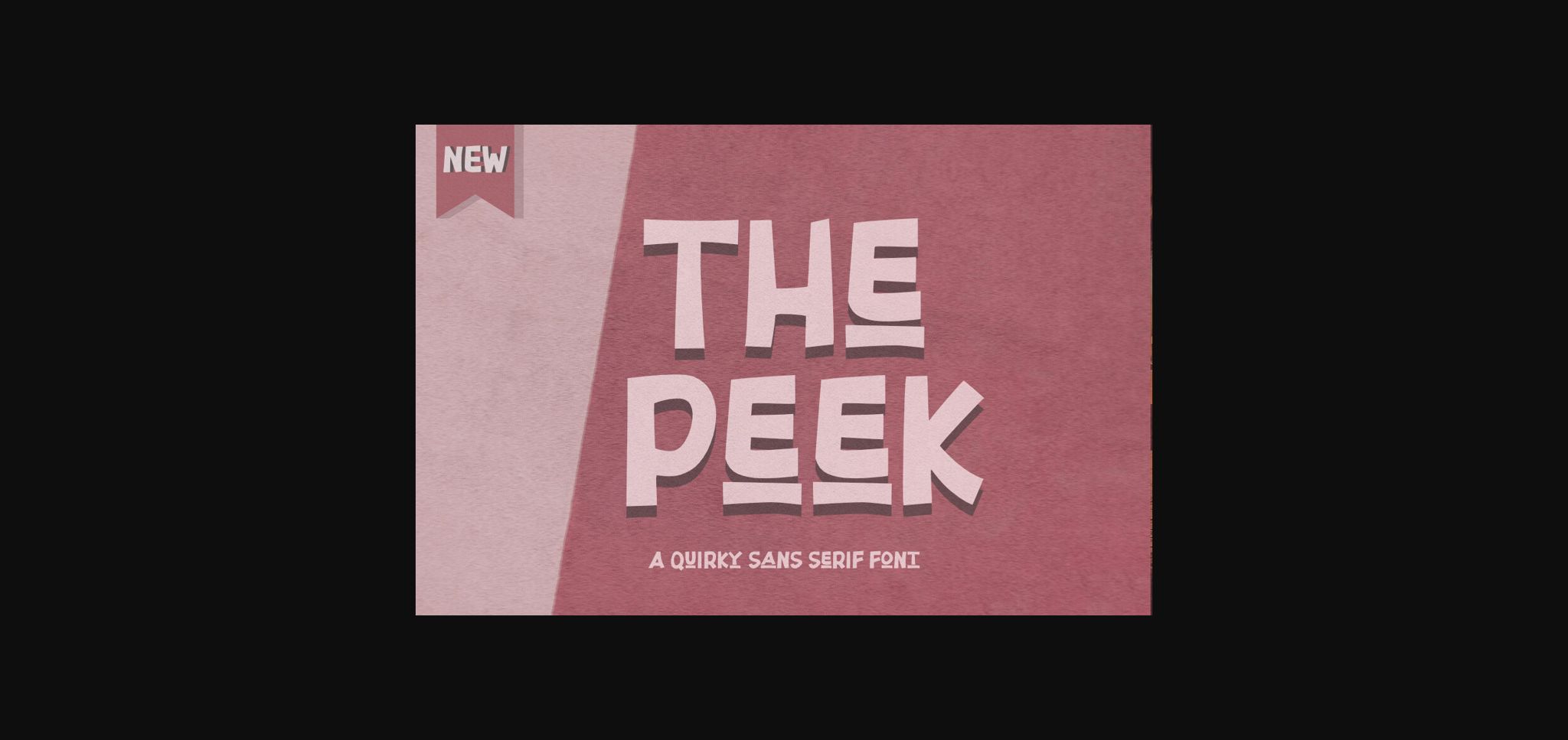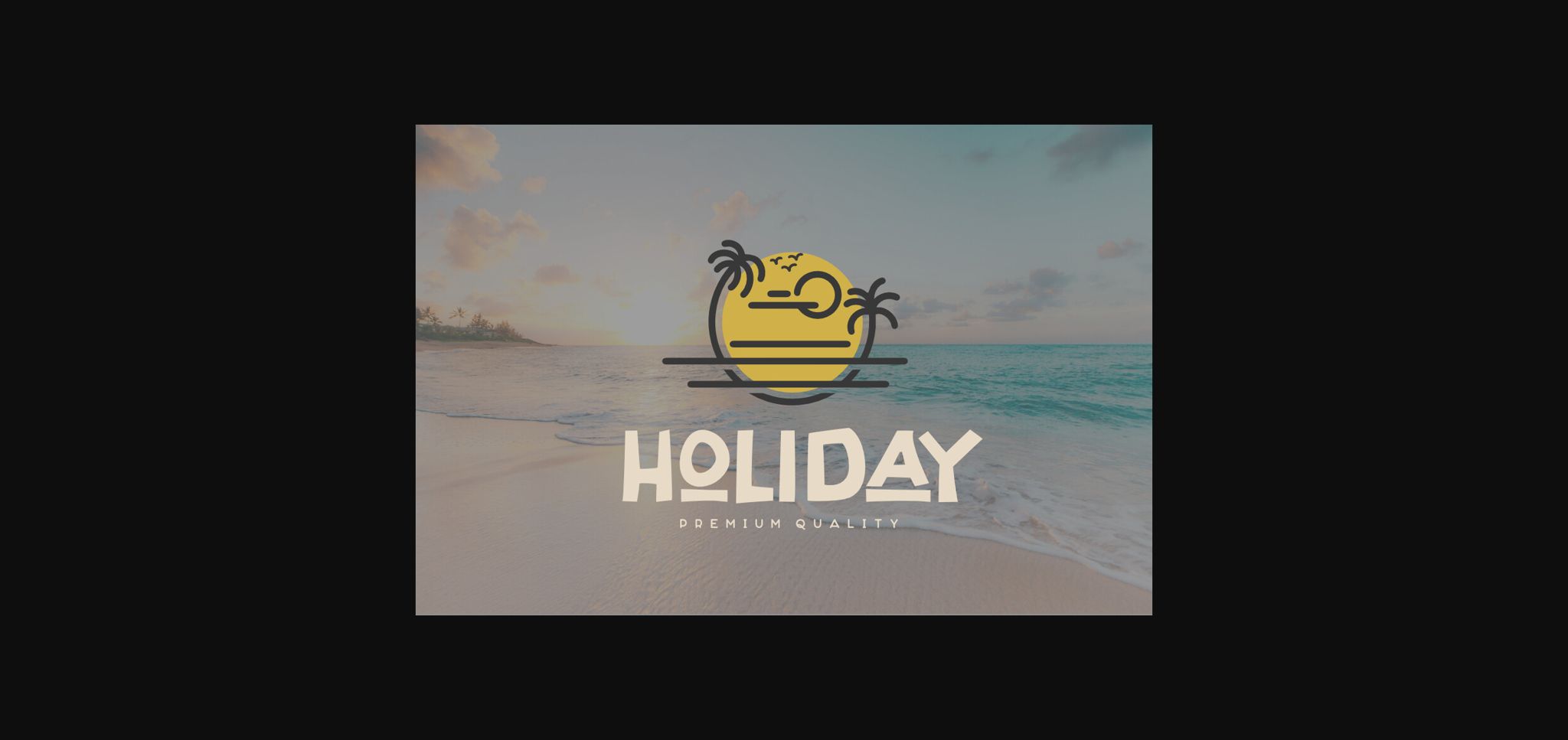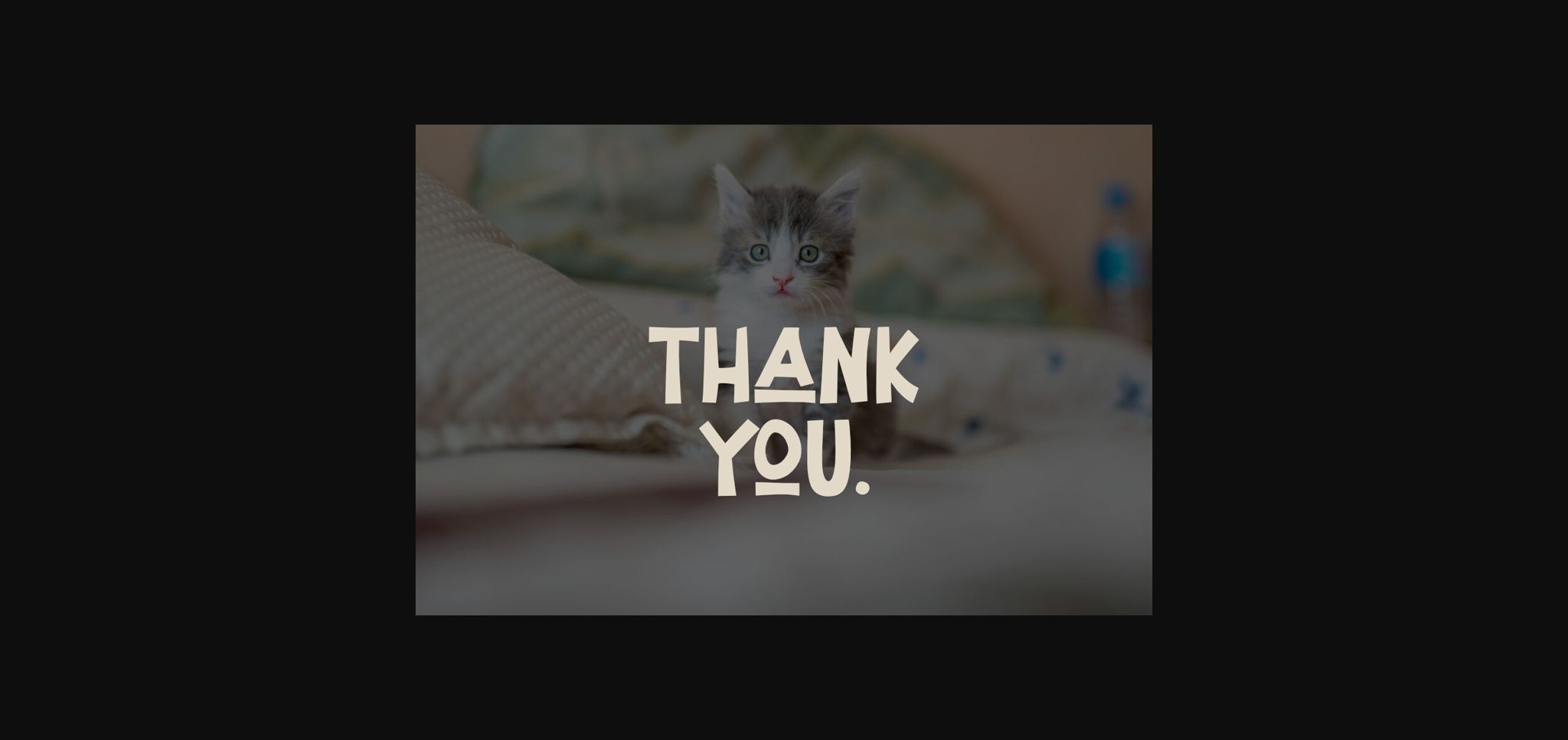
About The Peek Font
The Peek is a bold and assertive sans serif font. No matter the topic, this font will be an incredible asset to your fonts’ library, as it has the potential to elevate any creation.